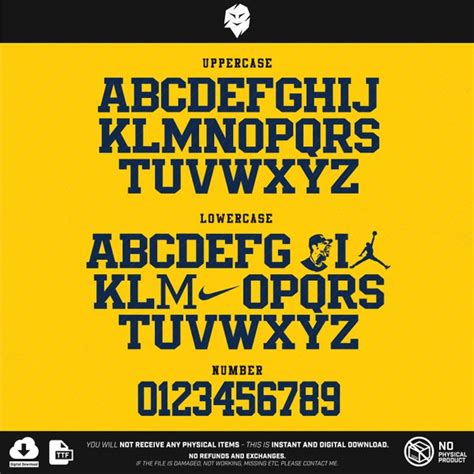
Michigan Wolverines Font: Free Download Guide
Are you a die-hard Michigan Wolverines fan looking to infuse some team spirit into your projects? One fantastic way to do that is by using the official or similar fonts associated with the Wolverines. In this guide, we’ll explore how you can find and download Michigan Wolverines fonts for free, ensuring your designs capture the essence of this iconic university. From creating eye-catching social media graphics to designing personalized merchandise, using the right font can make all the difference. So, let’s dive in and discover how to get your hands on these fonts and start showcasing your Wolverine pride!
Understanding the Importance of Fonts in Branding
When it comes to branding, fonts play a pivotal role in establishing a consistent and recognizable identity. Think about some of the world’s most famous brands – their logos and marketing materials all utilize specific fonts that evoke certain feelings and associations. For the Michigan Wolverines, the font used in their branding helps to convey a sense of tradition, strength, and academic excellence. Using the correct font ensures that anything you create aligns with the university’s established image.
Fonts have the power to communicate more than just words; they communicate personality. A bold and strong font might suggest power and dominance, while a more elegant and refined font might convey sophistication and tradition. In the case of the Wolverines, their font choices often reflect their athletic prowess and their academic prestige. When you use these fonts in your projects, you’re not just adding text – you’re adding a layer of identity and reinforcing the brand’s message. Moreover, consistency in font usage across different platforms and materials helps to create a cohesive brand image, making it easier for fans and supporters to recognize and connect with the Wolverines.
Moreover, the right font can significantly enhance readability and visual appeal. Imagine creating a banner for a Wolverines game using a font that’s difficult to read or clashes with the team’s colors – it simply wouldn’t have the same impact. By choosing a font that complements the overall design and is easy on the eyes, you can ensure that your message is effectively communicated and that your design looks professional and polished. This is particularly important for merchandise, social media graphics, and any other visual content that represents the Michigan Wolverines. So, understanding the importance of fonts in branding is the first step towards effectively using them to showcase your Wolverine pride.
Identifying the Official Michigan Wolverines Font
To effectively use the Michigan Wolverines font, it’s crucial to first identify what the official font actually is. The primary font often associated with the Michigan Wolverines is a custom typeface, which means it wasn’t just picked off the shelf. However, there are similar fonts that capture the same spirit and can be used as alternatives. Common characteristics include a bold , sturdy design that reflects the team’s strength and tradition. Identifying the specific font or close alternatives will help you maintain brand consistency in your designs.
While the exact font used by the Michigan Wolverines might be proprietary, there are several fonts that closely resemble it and can be used for various projects. Fonts like “Impact” or condensed sans-serif fonts are often cited as being similar in style. These fonts share the same bold and powerful characteristics, making them suitable alternatives for replicating the Wolverines’ visual identity. It’s also worth exploring different weights and styles within these font families to find the closest match. For instance, a bold condensed version of a sans-serif font can often capture the essence of the Wolverines’ font effectively.
Another approach is to look at the university’s official style guides or branding guidelines, if they are publicly available. These documents often provide detailed information about the fonts used in official communications and marketing materials. While you might not be able to download the exact font for free, the style guide can give you valuable insights into the font’s characteristics and provide suggestions for alternative fonts that align with the Wolverines’ brand. Additionally, keeping an eye on official Wolverines merchandise and promotional materials can help you identify the fonts they are currently using. By carefully analyzing these resources, you can develop a keen understanding of the Wolverines’ font and make informed decisions when choosing fonts for your own projects. This attention to detail will ensure that your designs accurately reflect the team’s identity and resonate with fellow fans.
Where to Find Free Fonts Similar to the Michigan Wolverines Font
Finding fonts similar to the Michigan Wolverines font can be achieved through several avenues, many of which offer free options. Websites that specialize in free fonts are a great starting point. Some popular sites include DaFont, Google Fonts, and Font Squirrel . These platforms host a vast collection of fonts, and you can often find fonts with similar characteristics to the Wolverines’ font by using keywords like “bold sans-serif” or “condensed font.”
Google Fonts is particularly useful because it offers a wide variety of high-quality fonts that are free to use, even for commercial purposes. You can easily search for fonts that match the Wolverines’ style and download them directly to your computer. DaFont and Font Squirrel are also excellent resources, although it’s important to check the licensing terms for each font to ensure it’s suitable for your intended use. When browsing these websites, pay close attention to the font’s weight, width, and overall appearance to find the closest match to the Wolverines’ font.
Another strategy is to explore online design communities and forums. These platforms often have discussions about font identification and recommendations for similar fonts. You can post a question asking for suggestions for fonts similar to the Michigan Wolverines font, and you’re likely to receive helpful responses from other designers and font enthusiasts. Additionally, some designers may even offer custom-made fonts that are inspired by the Wolverines’ font, which you might be able to download for free or for a small fee. Furthermore, consider using online font identification tools. These tools allow you to upload an image of the Wolverines’ font, and they will attempt to identify the font or suggest similar fonts. While these tools are not always accurate, they can be a useful starting point in your search. By combining these various methods, you can increase your chances of finding free fonts that closely resemble the Michigan Wolverines font and effectively capture the team’s spirit in your designs.
Conclusion
Finding and downloading a Michigan Wolverines font for free is a great way to personalize your projects and show off your team spirit. By understanding the importance of fonts in branding, identifying the official font (or suitable alternatives), and knowing where to find free options, you can effectively incorporate the Wolverines’ visual identity into your designs. Remember to always respect font licensing and usage rights to ensure ethical and legal use. So, go ahead and start creating awesome Wolverines-themed designs today!